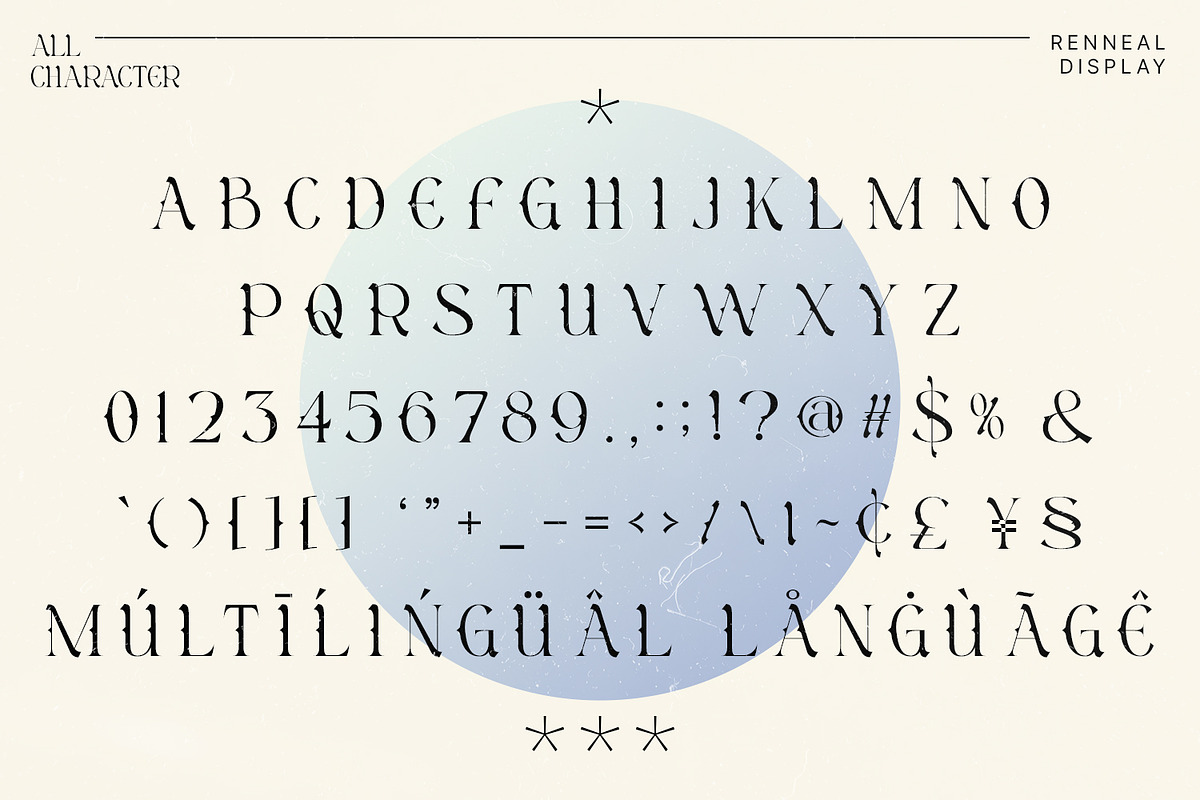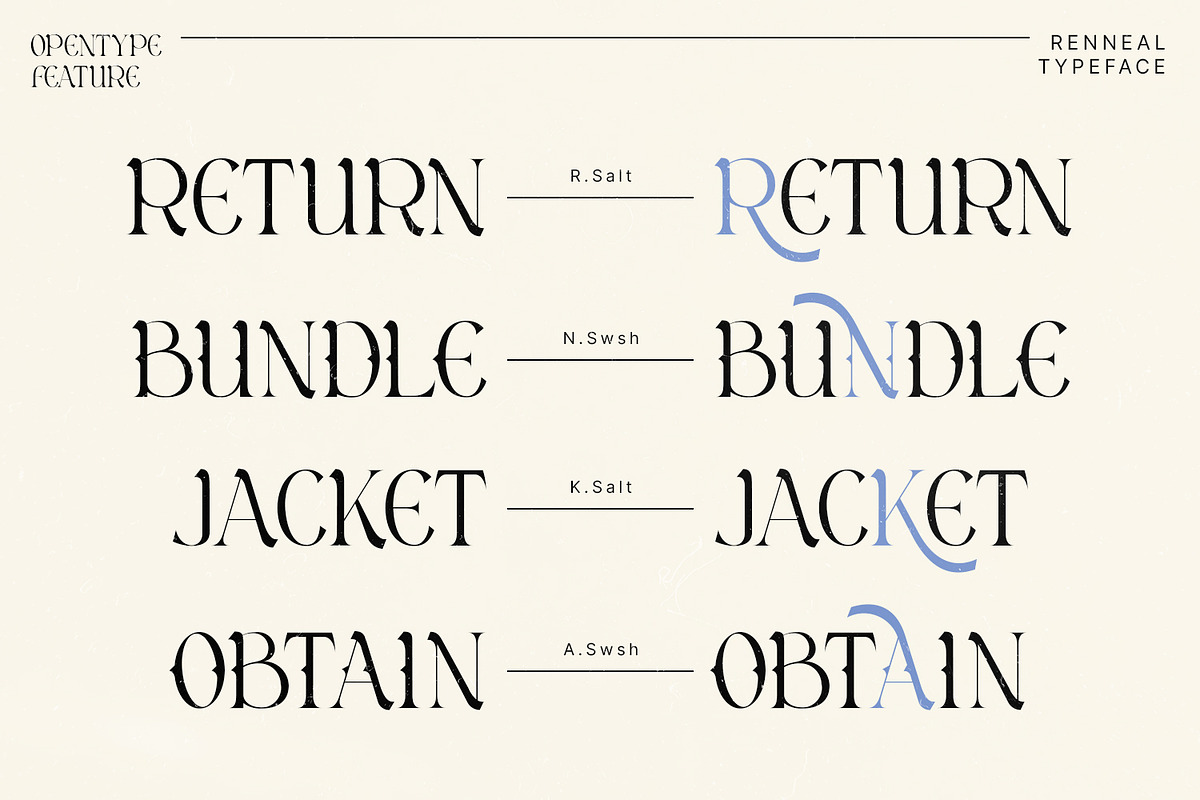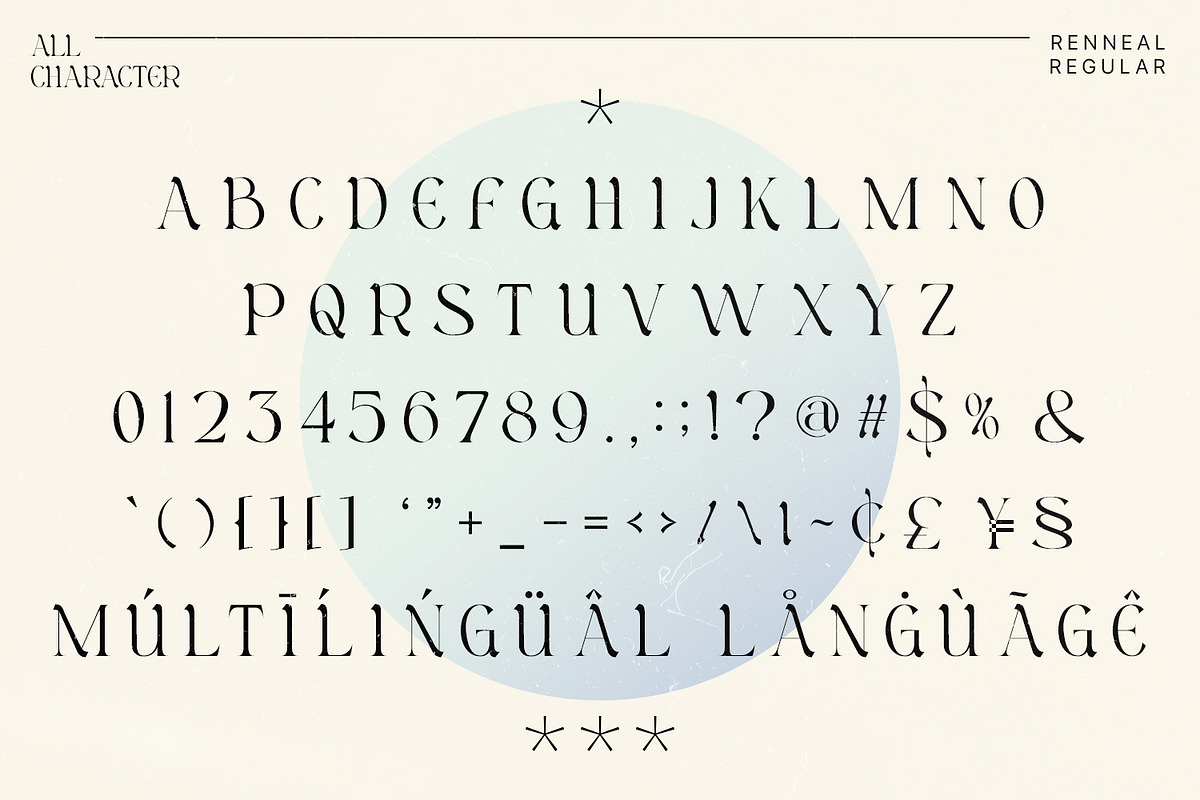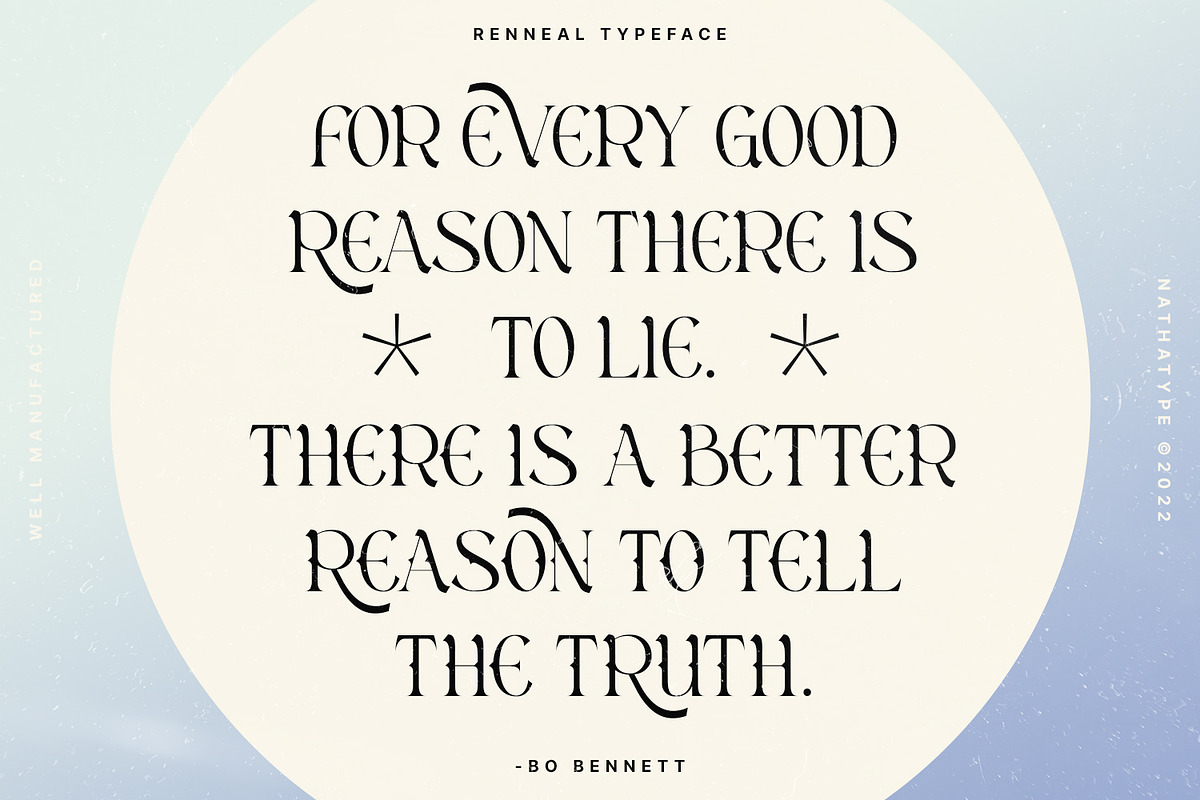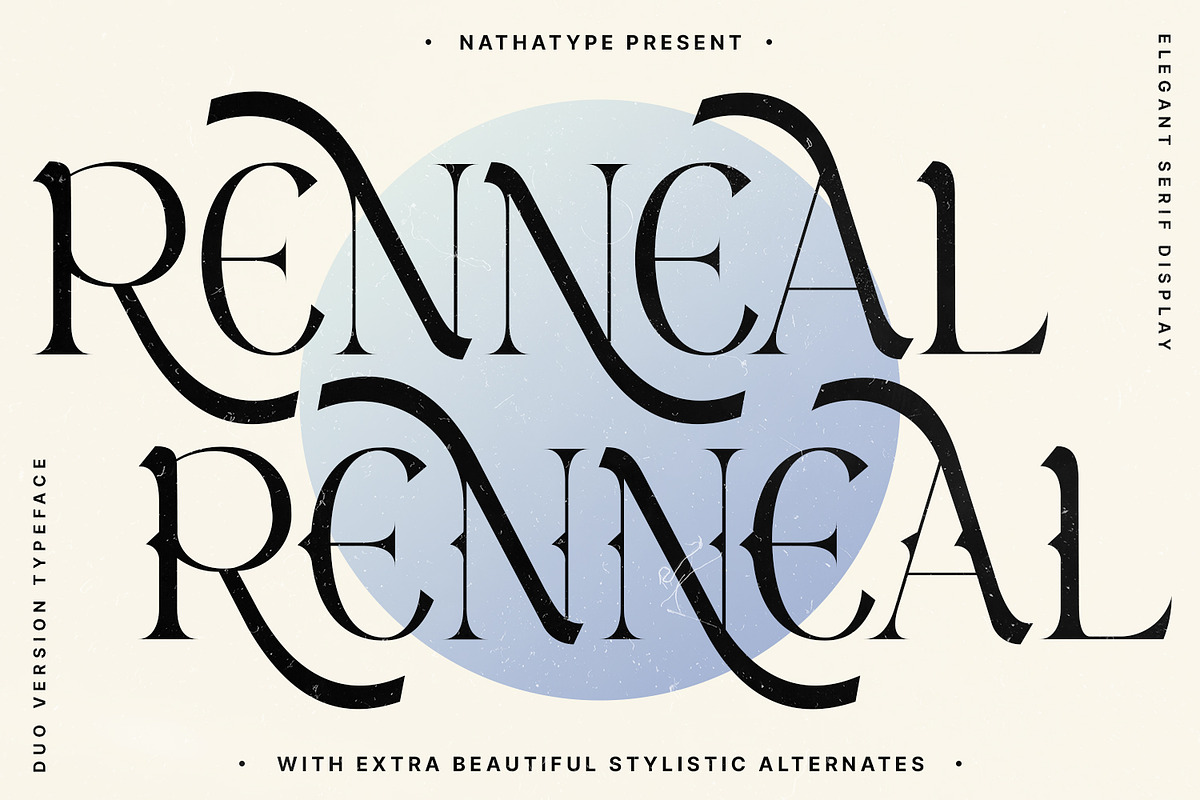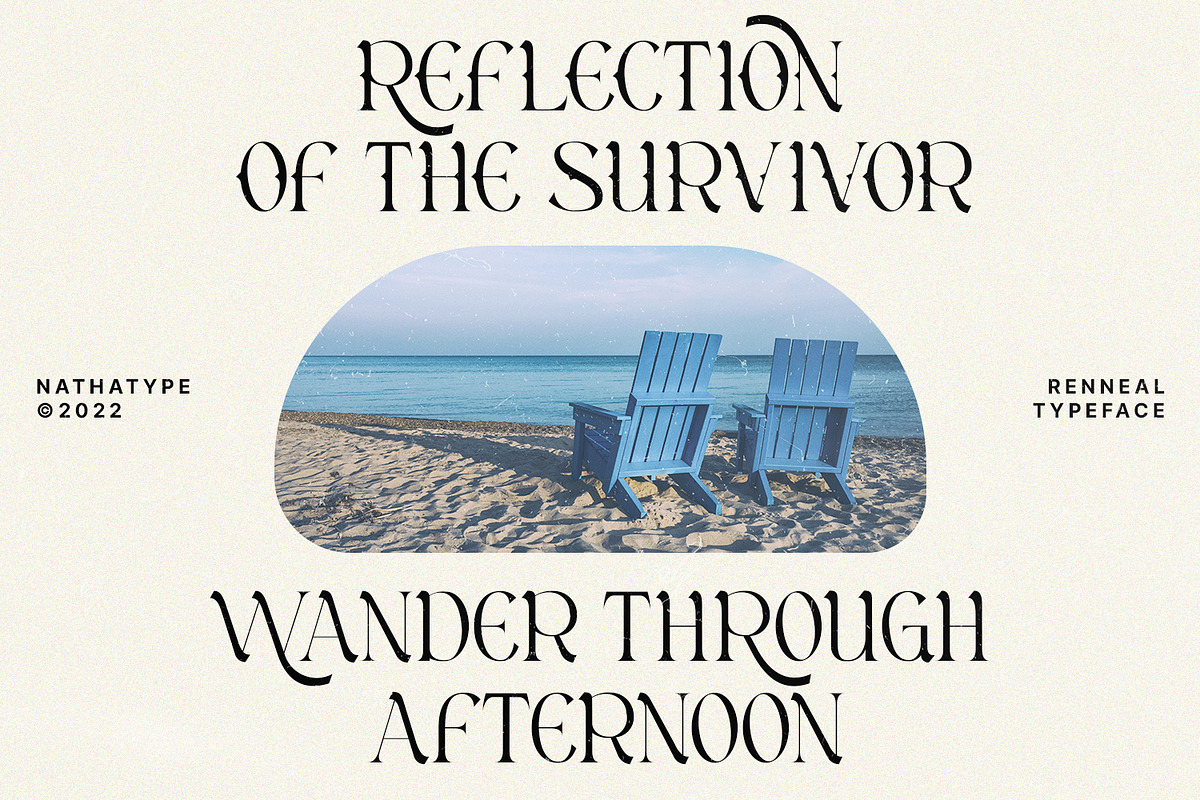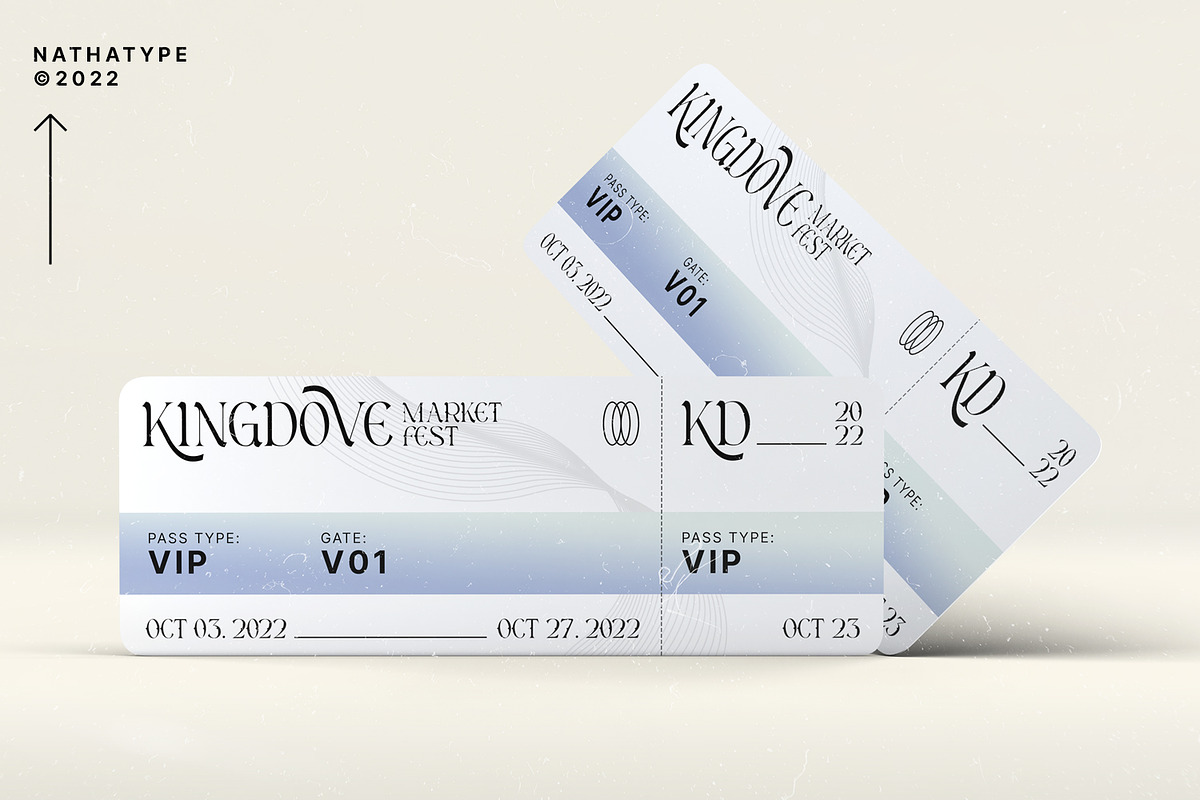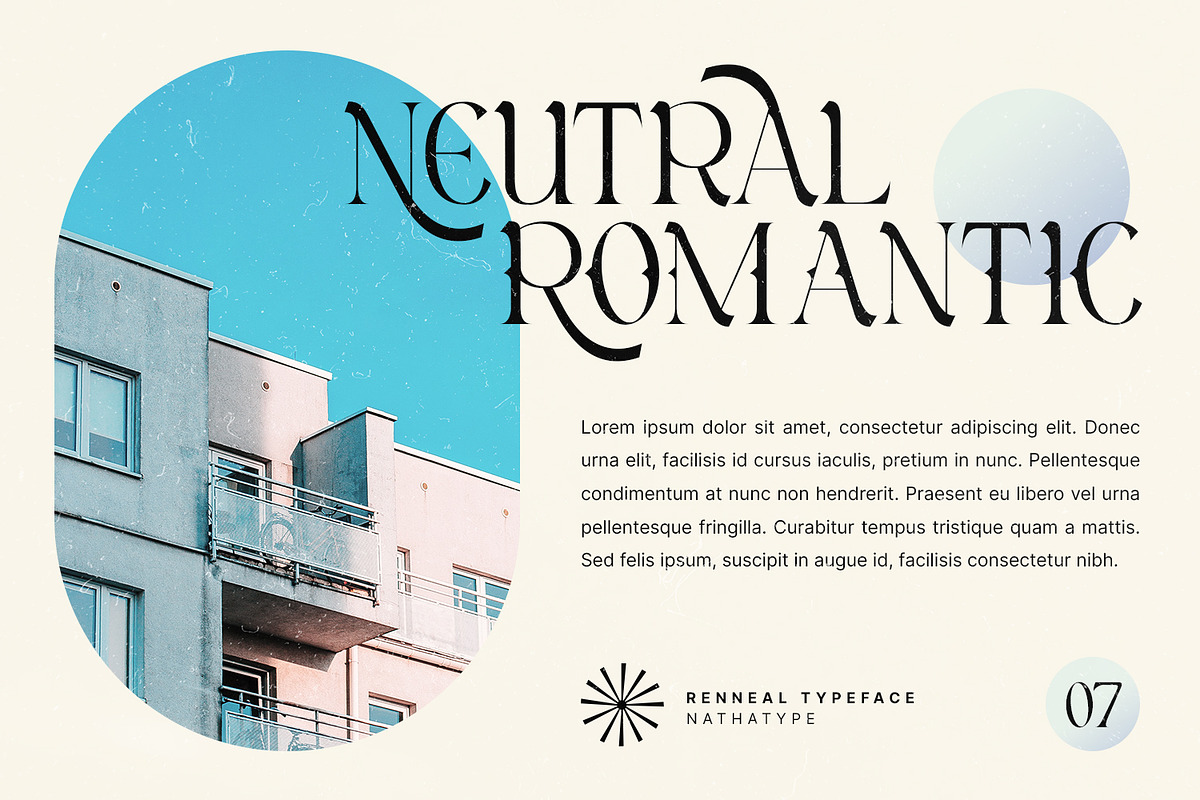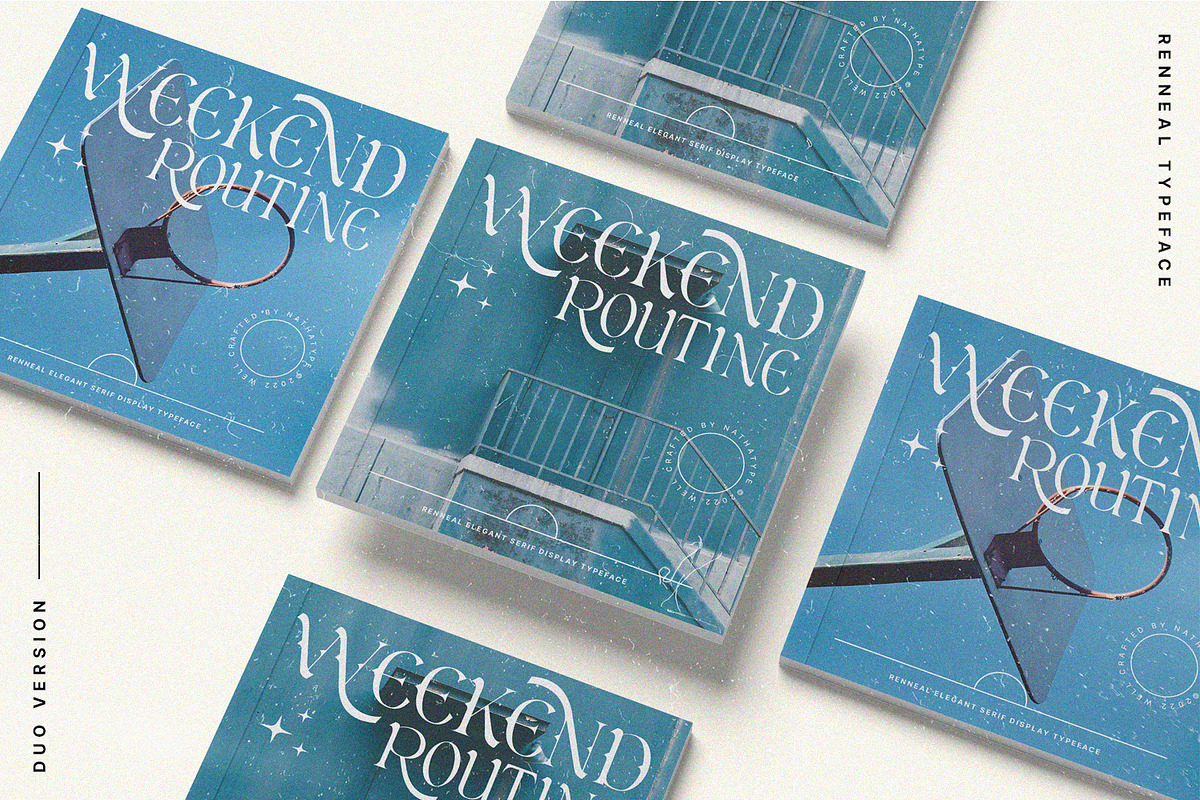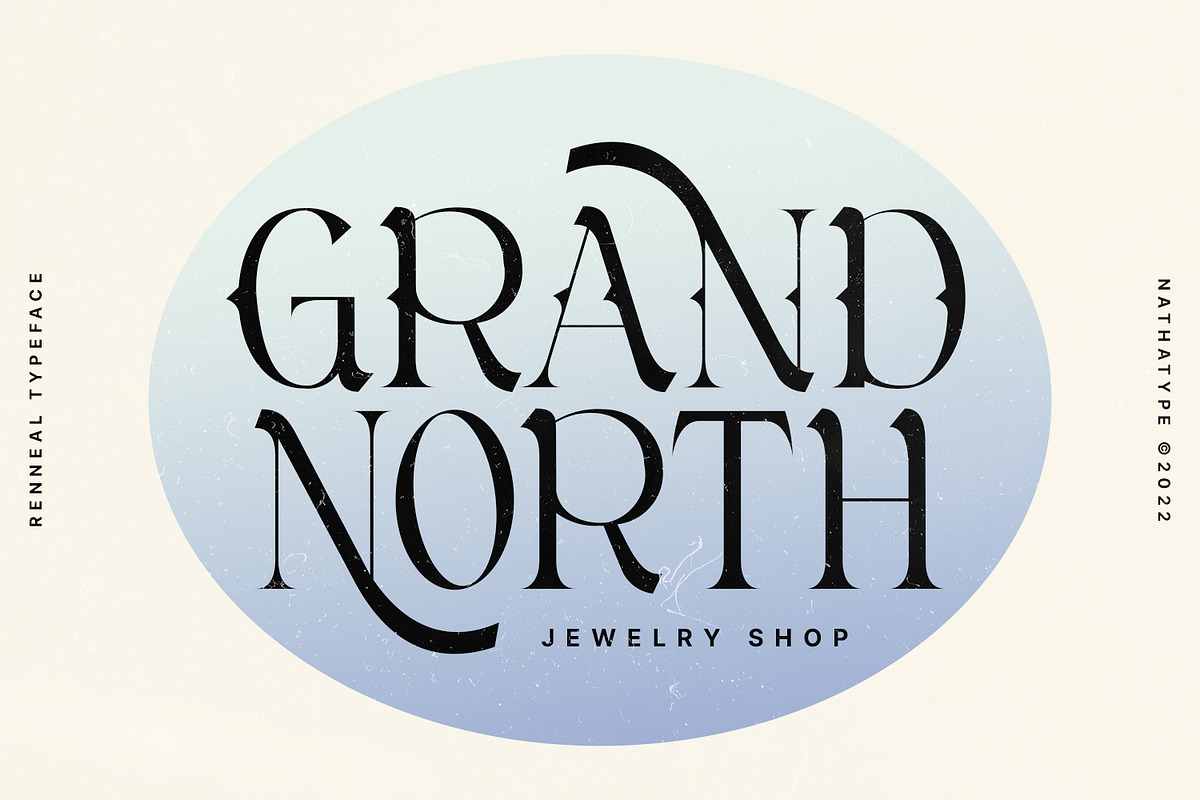
Renneal
Renneal is an uppercase font that comes in duo (serif and display) version. The unique strokes/curves at the particular part of the character give the serif style artistic vibes. On the other hand, the display version expresses more simple and clean looks than the serif. Overall, Renneal designed to be easy to read and works best in header/title text.
It is suitable for branding, logos, social media quotes, stickers, posters, vintage designs, wall art, merchandise, social media, and many more. Get more inspiration by seeing the preview.